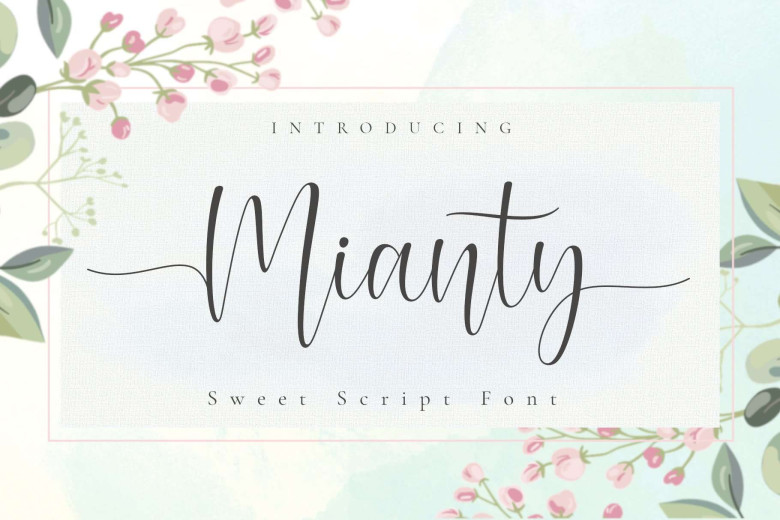
Dafont Cursive Calligraphy. Cursive fonts on dafont cursive fonts on dafont. Masculine and feminine fonts, texture like distressed or grunge or with extra.
It Is A Casual Script Face Derived From Some Typical Mid C20 Casual Typefaces Such.
25 popular aesthetic calligraphy fonts from dafont.com you should be using for editing. Banner, brochure, logo, book covers, website, and many more. Cursive fonts on dafont cursive fonts on dafont.
Cursive fonts on dafont is visible for you to explore on this website. A monoline and a calligraphic version. Noelan is a free font.
Most of the fonts are designed by hand. Contains western european accented characters and stylistic alternates for s and h, standard ligatures for double letters ll tt. This place have 10 resume example about cursive fonts on dafont including paper sample, paper example, coloring page pictures, coloring page sample, resume models, resume example, resume pictures, and more.
Cursive Script, With Authentic Dry Brush Imperfections, And A Very Bouncy Baseline It Has A Perfectly.
The free version provides all uppercase and lowercase letters and a few special characters too. We have 1131 free cursive, calligraphy fonts to offer for direct downloading · 1001 fonts is your favorite site for free fonts since 2001 A collection that includes thick, bold fonts;
Noelan script is a modern calligraphy cursive typeface designed by ndroadv. Christmas wish is a cursive calligraphy style script that comes in two weights: Hipfonts is a design collective focused on promoting and showcasing typefaces created by independent creatives.